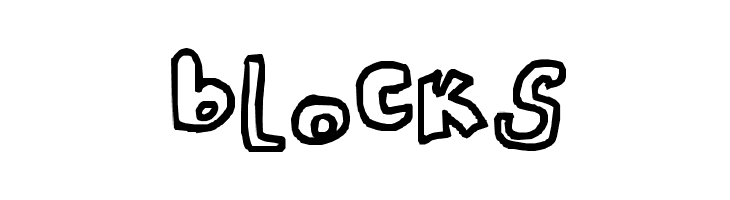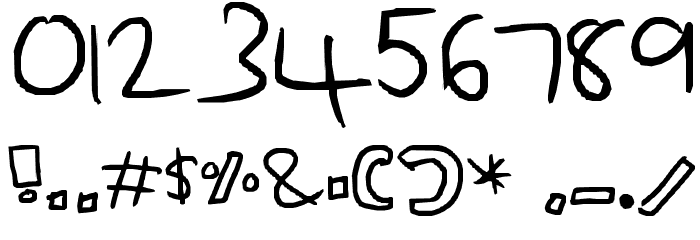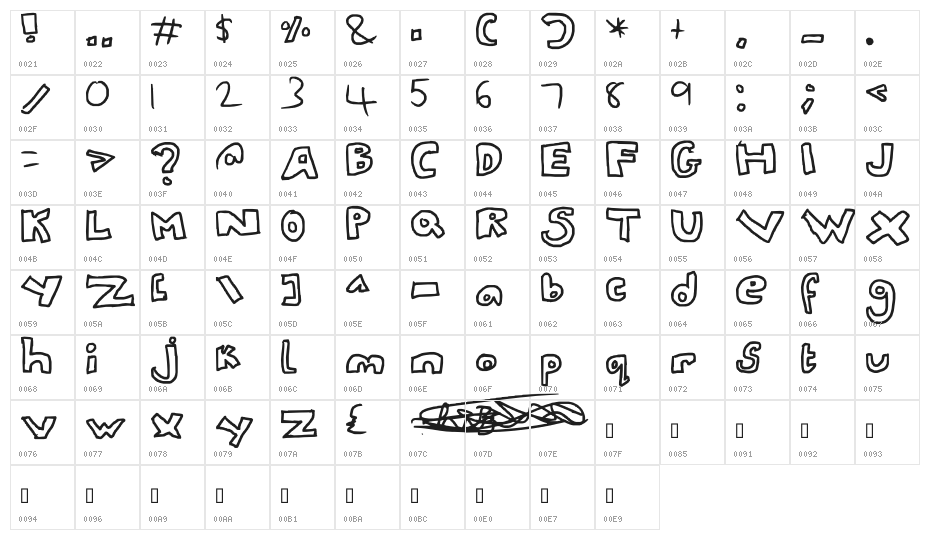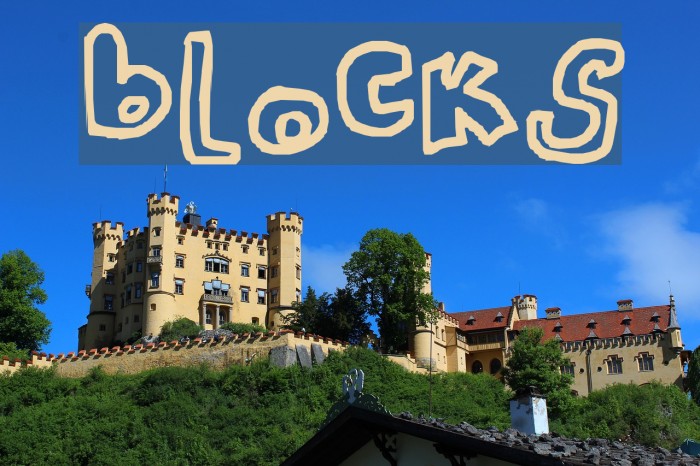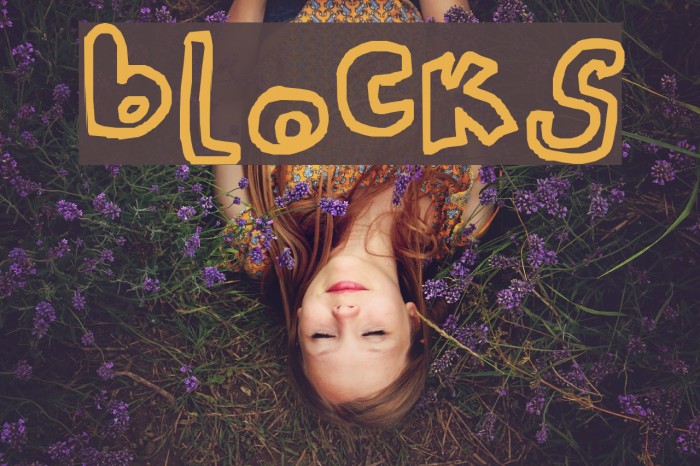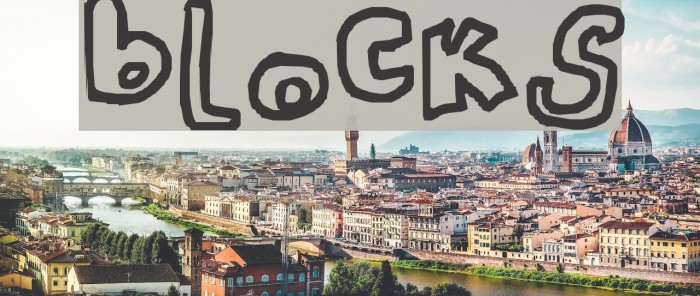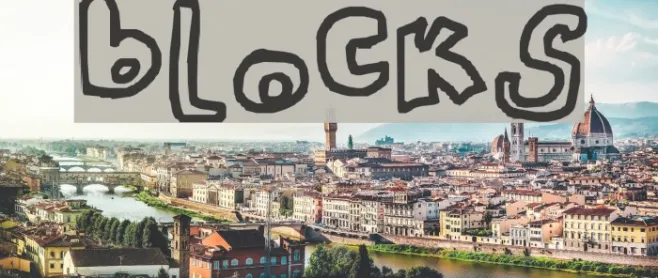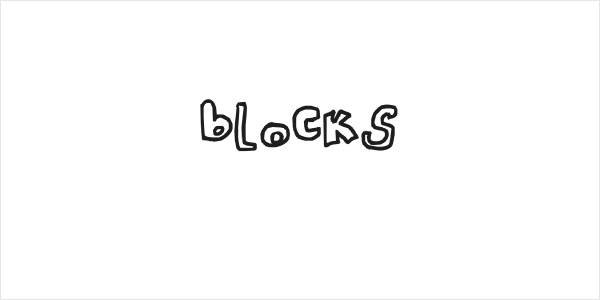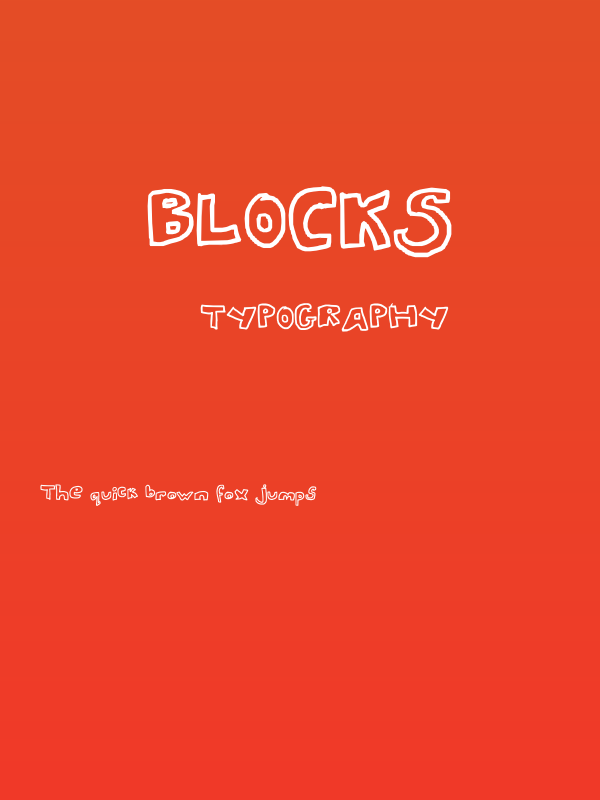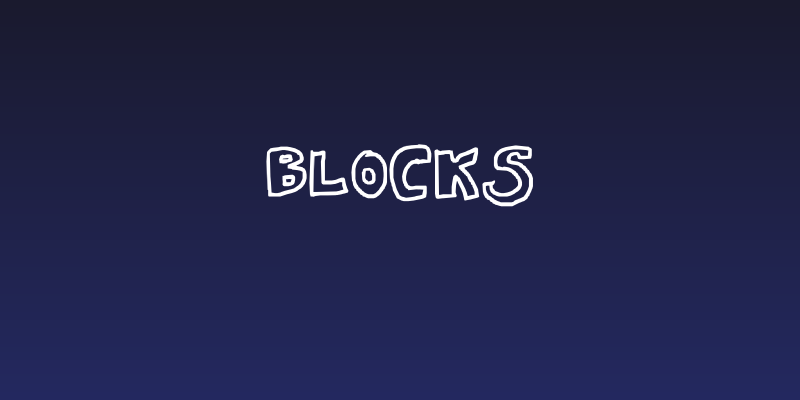
blocks Font
blocks Description
This playful and bold font features a hand-drawn aesthetic with irregular, wavy lines that give it a whimsical and informal appearance. The characters are slightly uneven, adding to the charm and casual feel of the typeface. The uppercase letters are bold and prominent, while the lowercase letters maintain a consistent style with a slightly smaller size. Numbers and special characters follow the same hand-drawn style, ensuring a cohesive look across all elements. The font's unique style makes it suitable for creative and fun projects, where a touch of personality is desired.
| Overall Style | Whimsical, Playful |
| Proposed Projects | Ideal for children's books, comic strips, playful branding, and creative posters. |